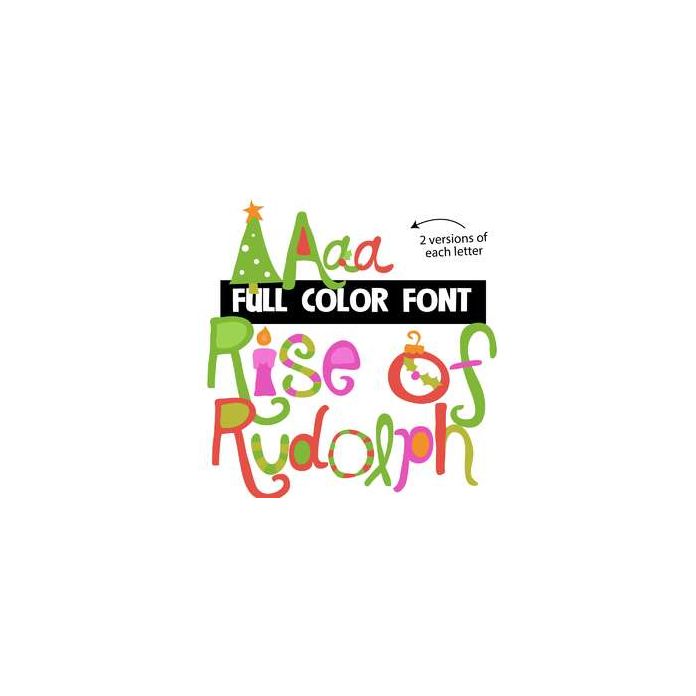
This full-color font features Christmas-colored, whimsical lettering. There are two versions of each lettering in a fun Halloween color palette. This font works best for titles, displays, posters and more. Please note color fonts will show as black in non compatible programs. This font type is compatible with Silhouette Studio